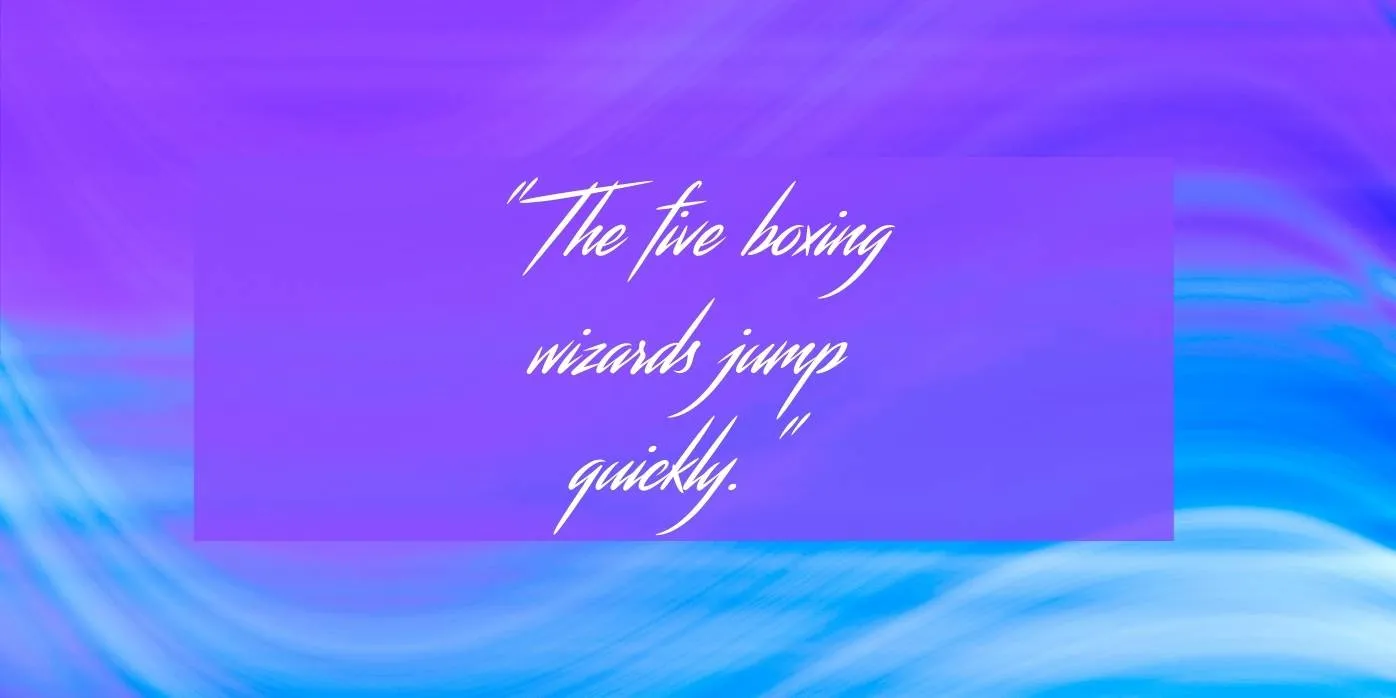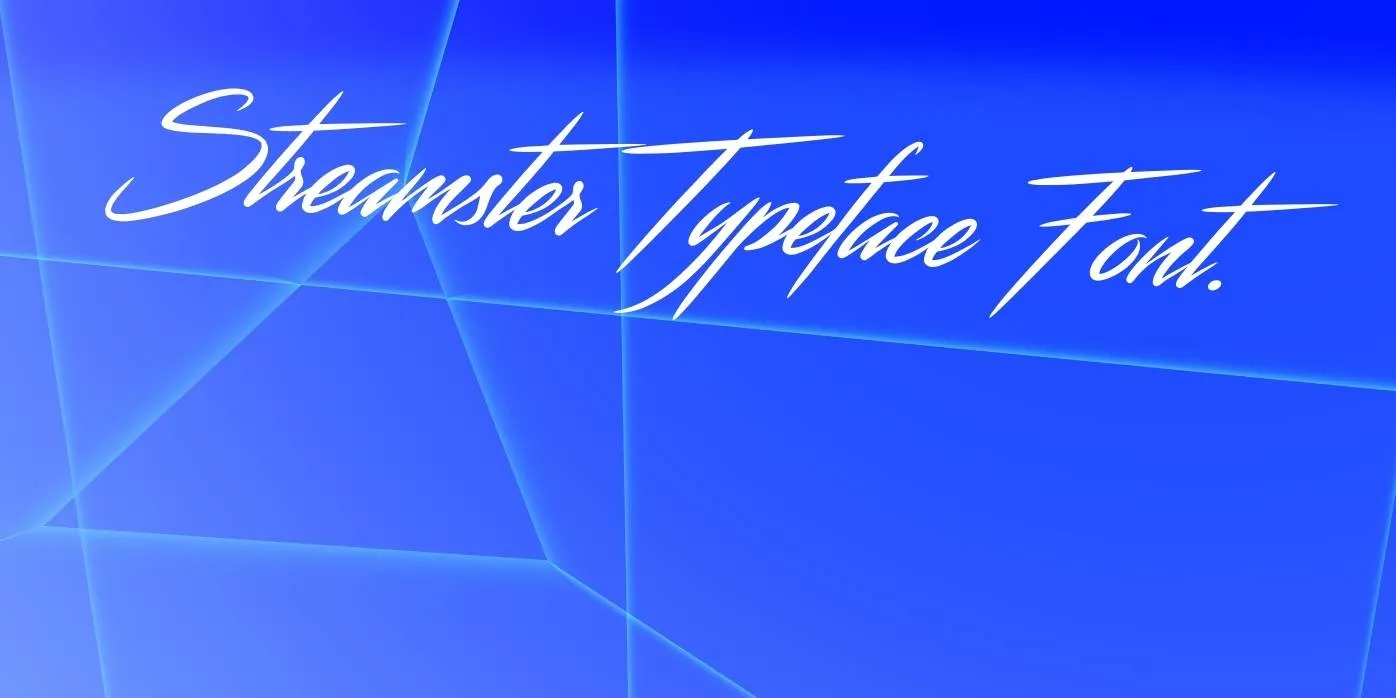
Streamster Font
Streamster Typeface Font was designed by “Adobe Type” for their font-face. This font was developed by Youssef Habchi. If you are looking to streamline your message, then this font is the right choice for you. This typeface has a modern streamlined look that will give your website or project a professional edge.
Streamster’s streamlining design gives an overall more sophisticated look to your designs. This staggering font is very famous for many different streamline effects and Glyphs. This staggering font is an excellent choice for any website or web design project with a modern streamlined style. Soria Serif font is most similar to this typeface.
People often wonder how to stream files with a streamster typeface. Streamster Typeface Font is perfect for stream video or audio files. Simply provides the full URL of the video or audio file. This marvelous font has neat and keen features effects.